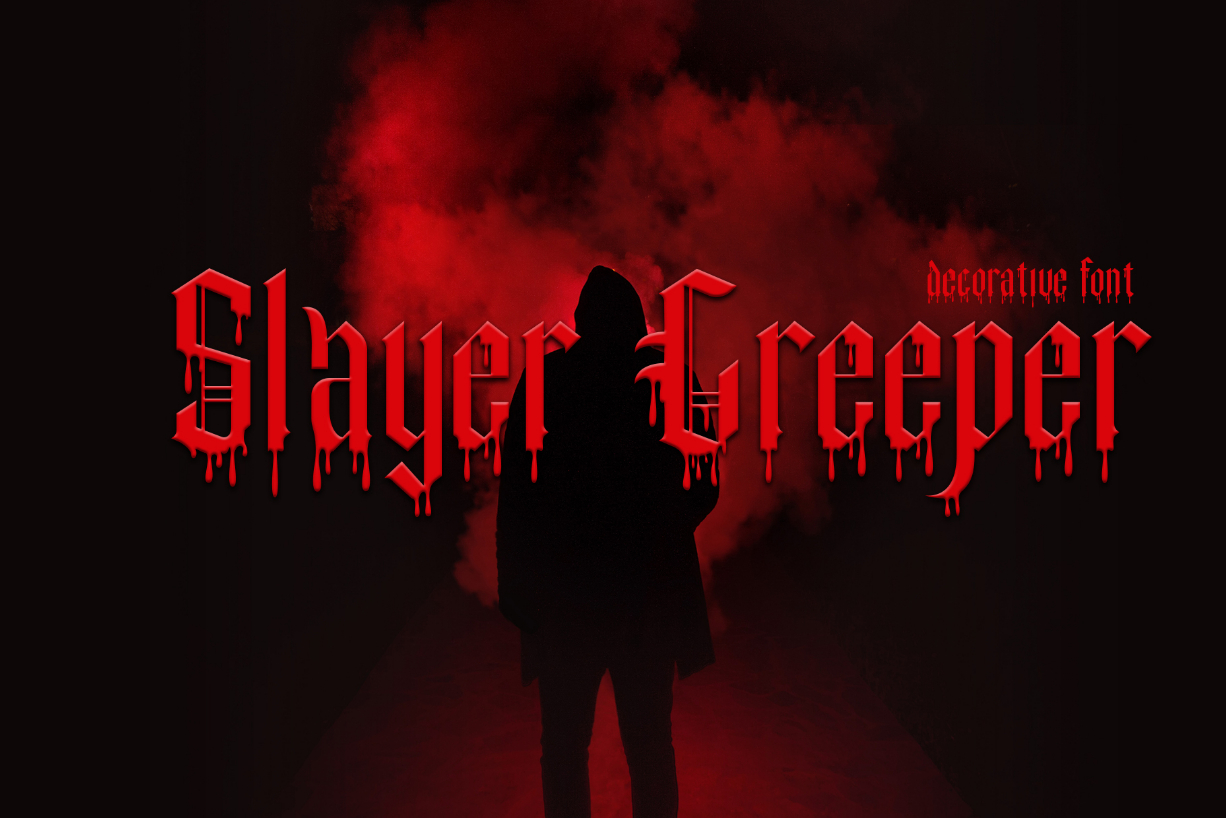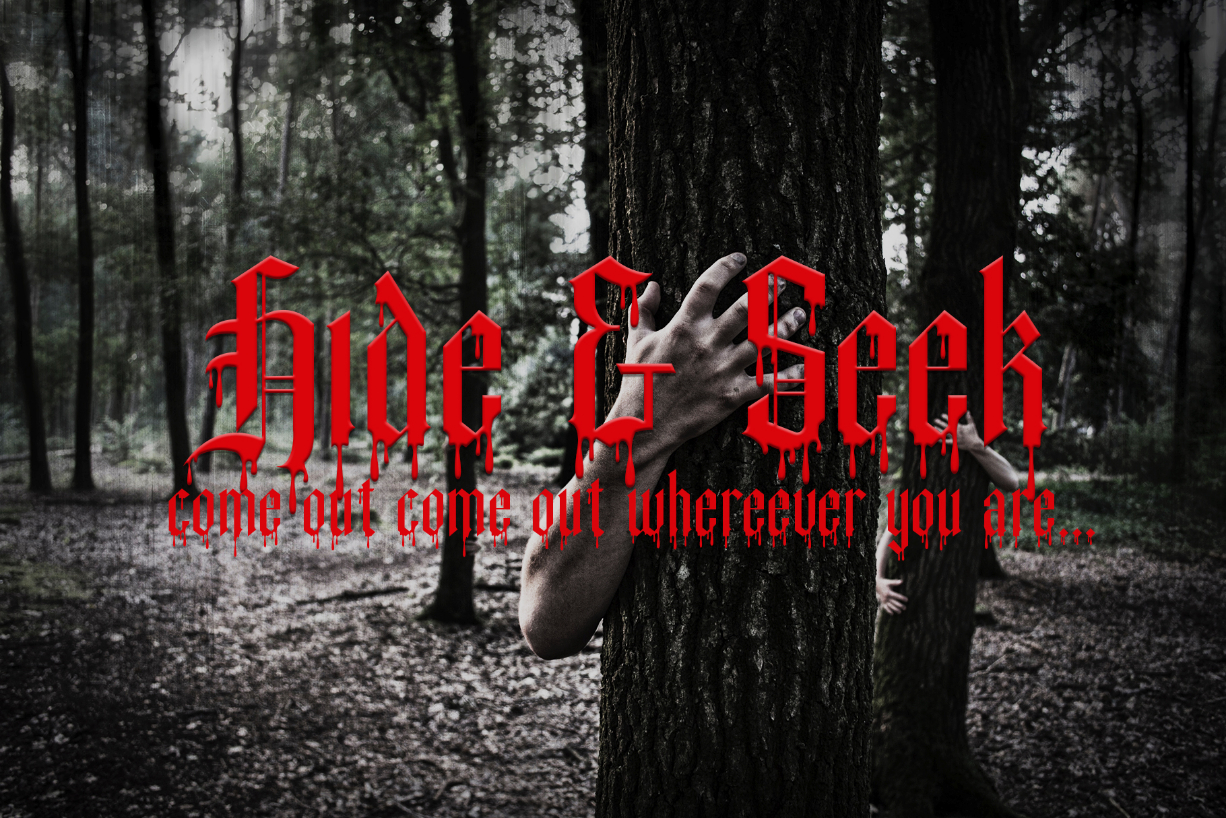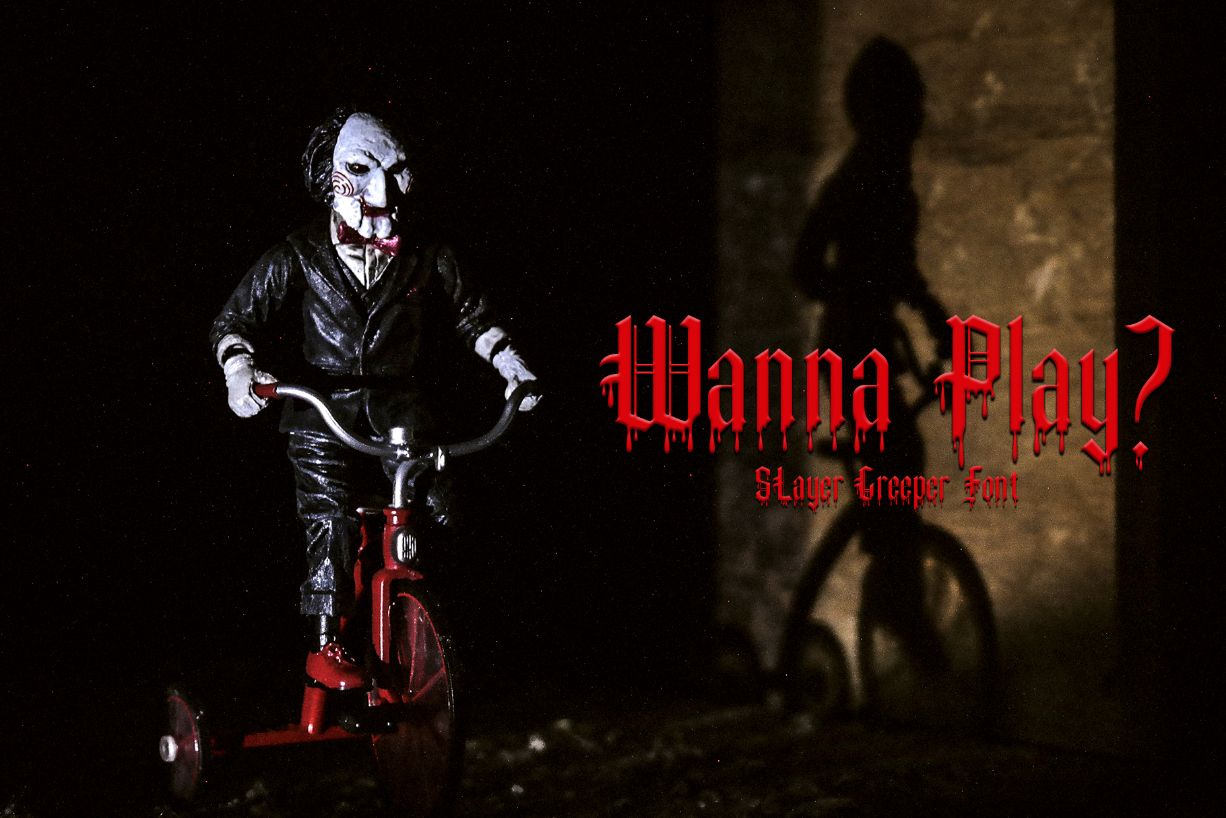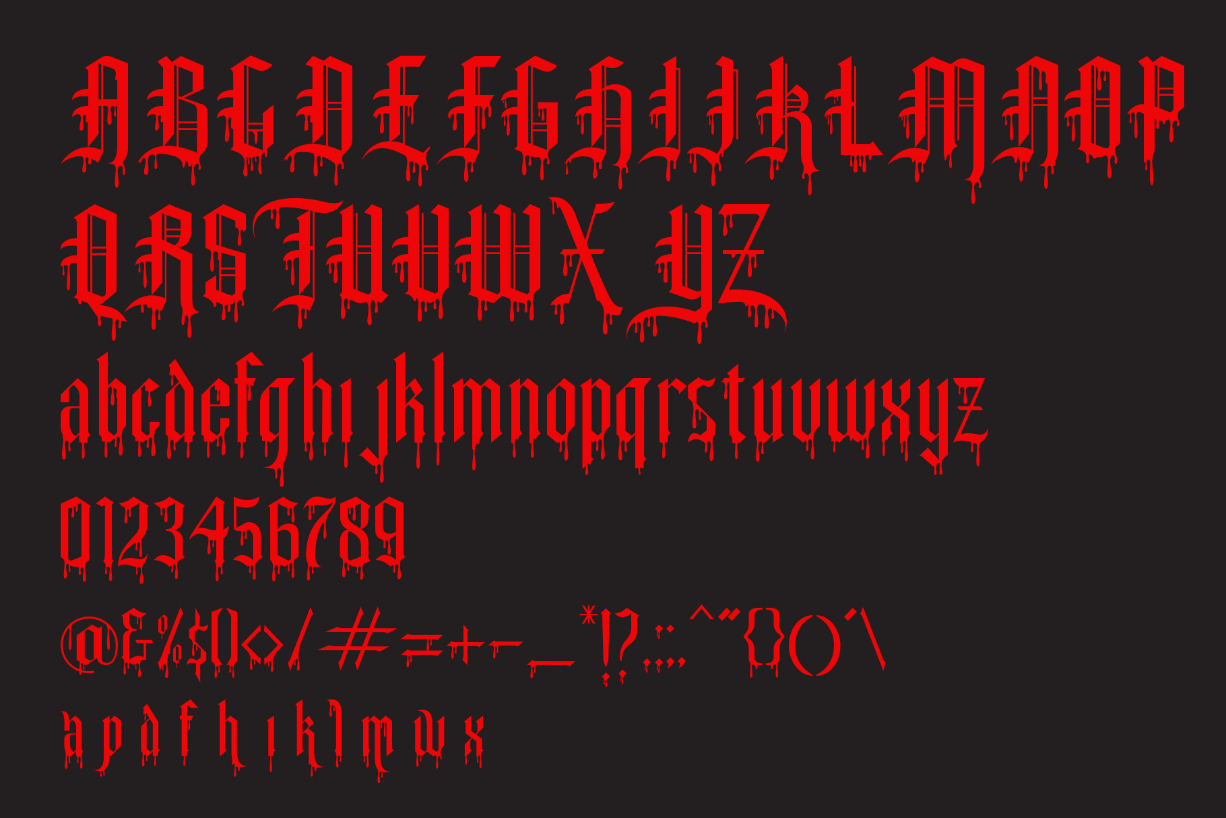
Slayer Creeper Font
About Slayer Creeper Font
Get ready to slay you next crafting project with this truly iconic blackletter font: Dripping in blood, Slayer Creeper is here to take any Halloween project to the next level.